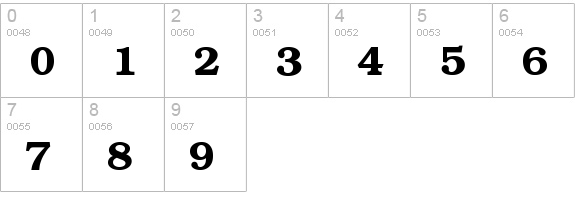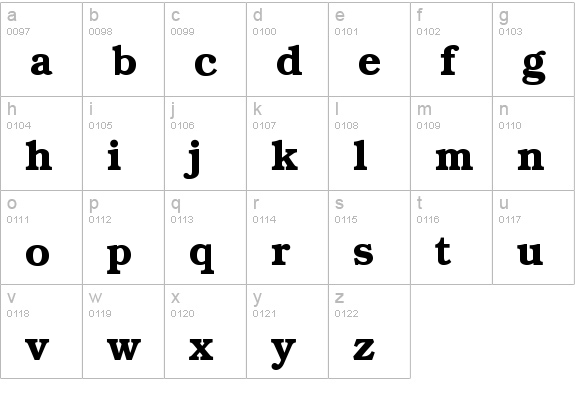
Bookman* Demibold Font Details
Bookman* Demibold is a sub-bold, structured variant in the Bookman* typeface family \xE2\x80\x94 well suited to sub-headlines and emphasised passages.
Bookman* Demibold is a classic and versatile font that exudes elegance and sophistication. With its strong and bold appearance, this typeface is perfect for adding a touch of professionalism to any design project. The clean lines and well-balanced proportions make Bookman* Demibold a timeless choice for both print and digital applications. And the best part? Bookman* Demibold is available for free download at FontsMarket.com. So whether you're working on a business presentation, a wedding invitation, or a logo design, you can easily access this high-quality font without breaking the bank. Don't miss out on the opportunity to elevate your creations with the timeless appeal of Bookman* Demibold. Download it today and discover the endless possibilities this font has to offer.